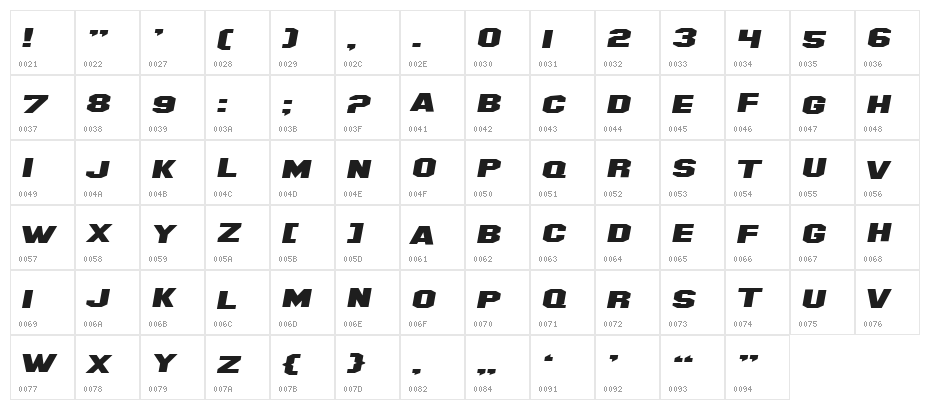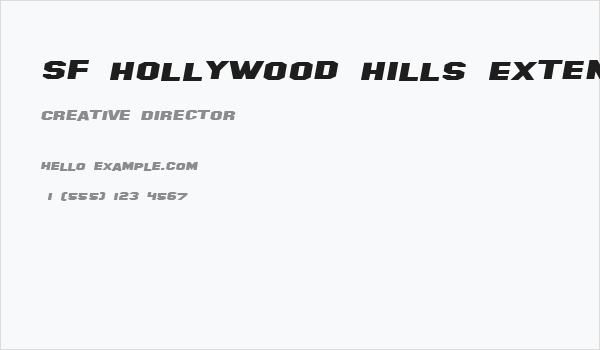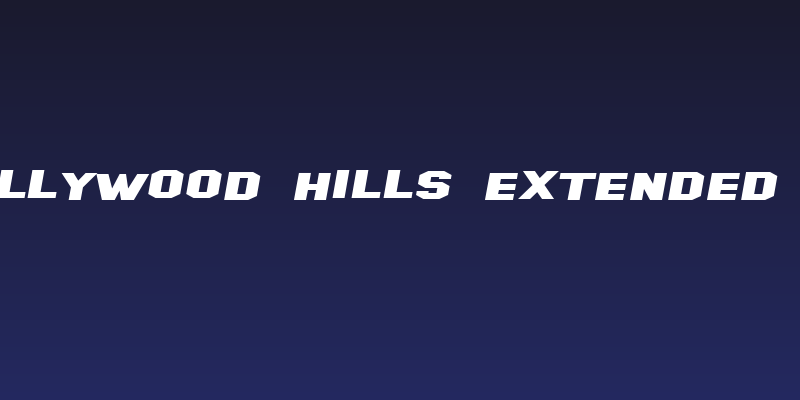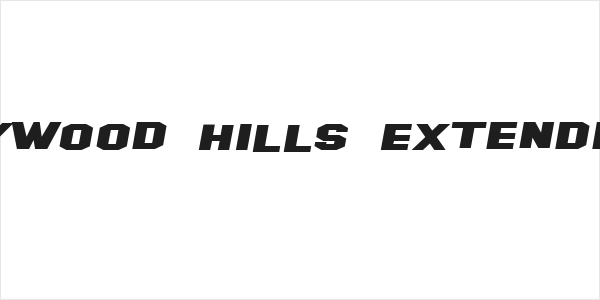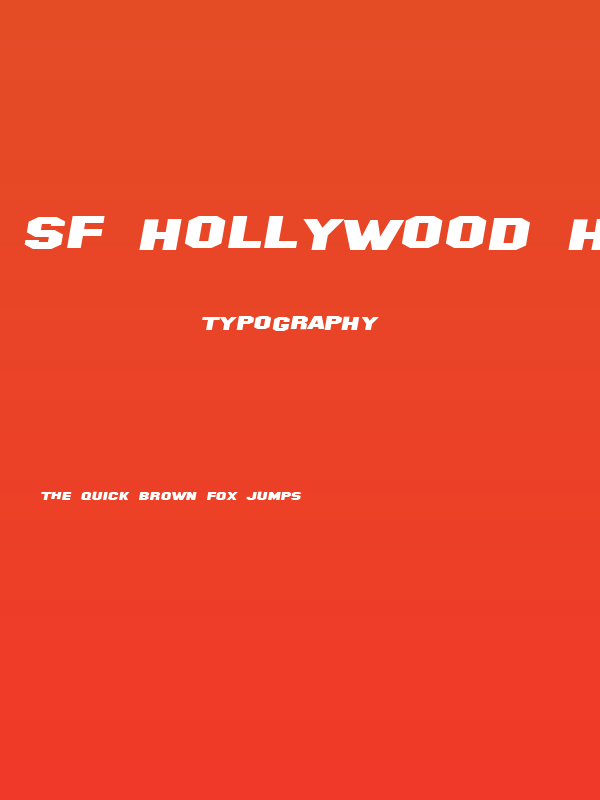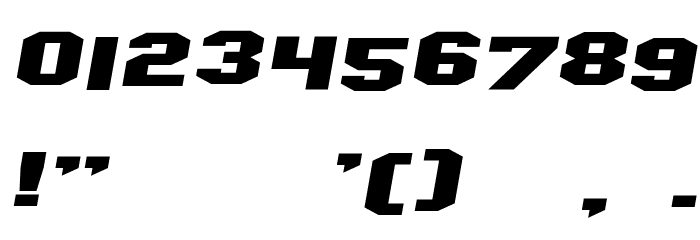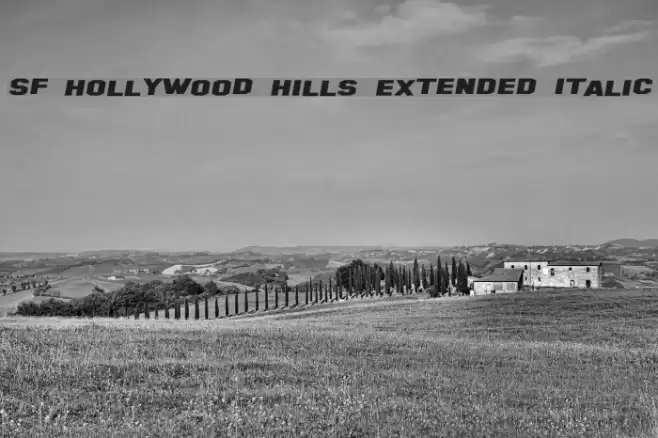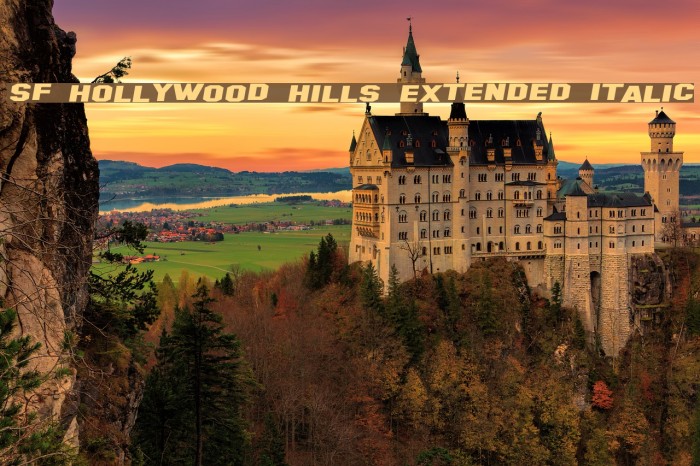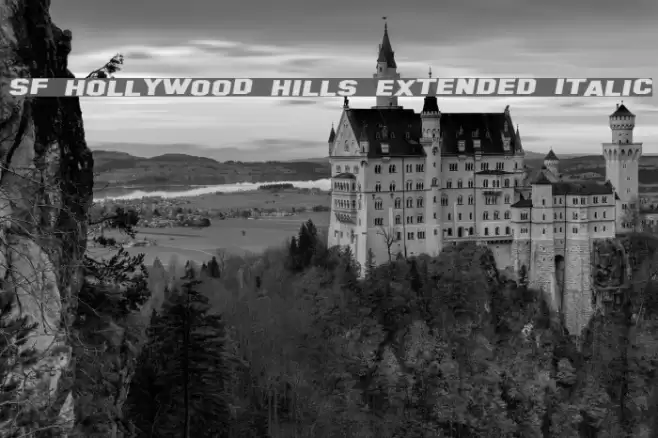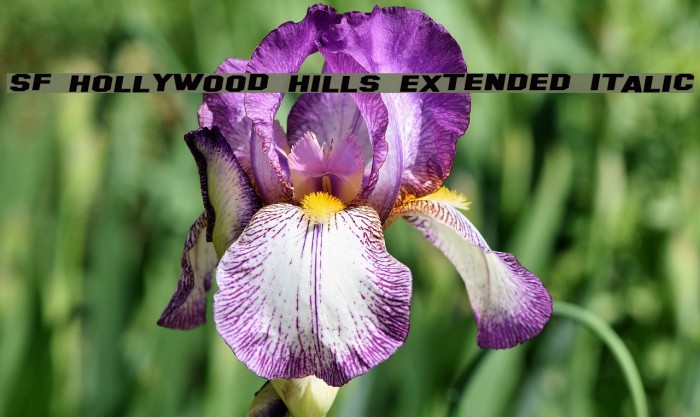
SF Hollywood Hills Extended Italic Font
SF Hollywood Hills Extended Italic Description
This font features a bold and dynamic style with an italicized slant, giving it a sense of motion and energy. The characters are wide and extended, providing a strong presence on the page. Each letter is crafted with sharp angles and clean lines, creating a modern and assertive look. The uppercase and lowercase letters maintain a consistent design, ensuring readability while adding a unique flair. The numerals and special characters are designed to match the boldness of the alphabet, making this font suitable for impactful designs.
| Proposed Projects | Ideal for movie posters, sports branding, dynamic logos, and attention-grabbing headlines. |